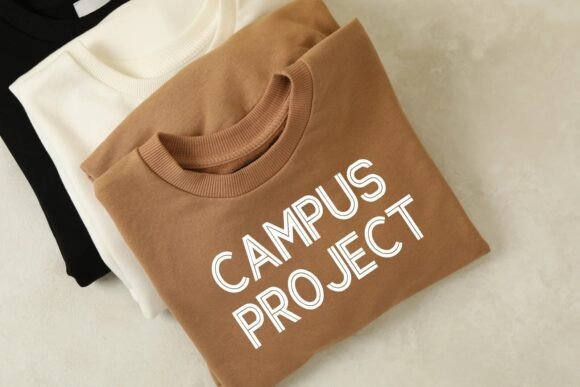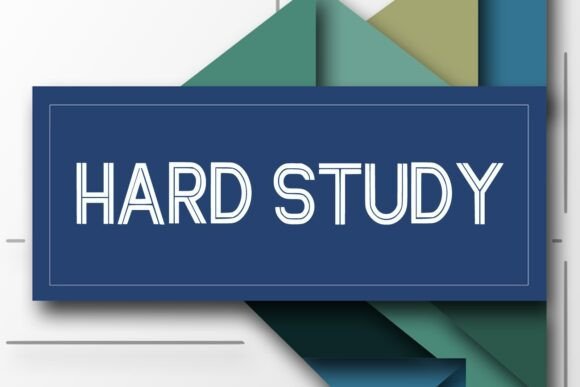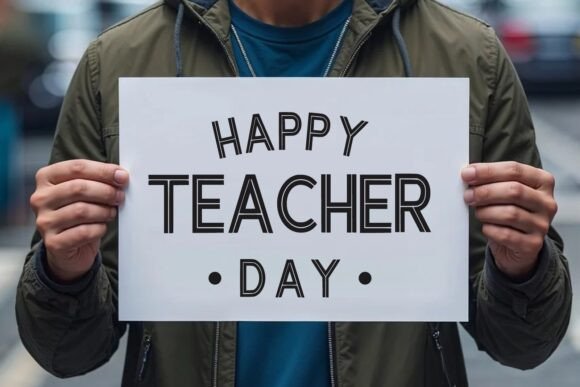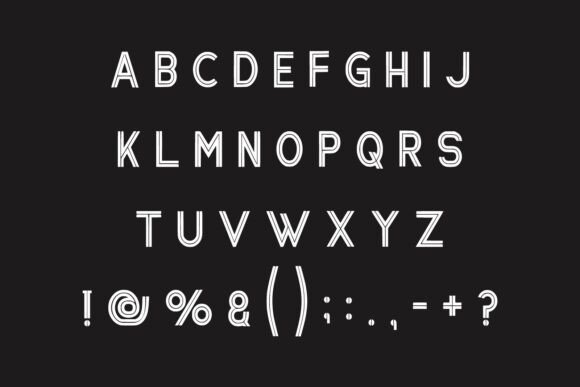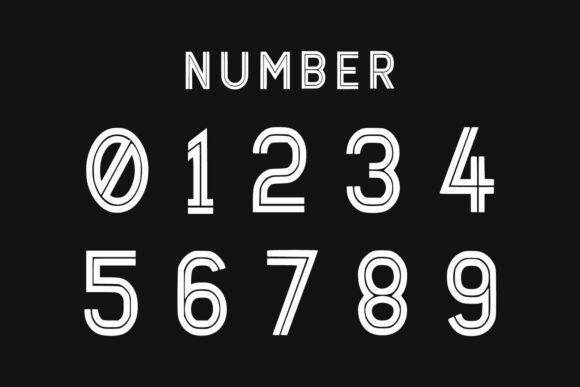
Introduction to Female Teacher Font
Female Teacher is an elegant display font.
Whimsical and a bit quirky, this font will brighten up each of your designs Add it confidently to your projects, and you will love the results.
Key Features of Female Teacher Font
Why Choose Female Teacher Font?